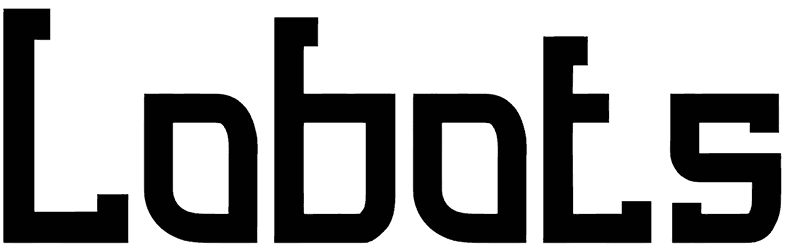
Lobots Font
While the audience is being bombarded with thousands of graphic content every day, grabbing their attention is really hard, but a magical geometric font such as Lobots would solve this problem and can be your game-changer in designing eye-catching artwork, including movie posters, video game banners, digital brochures, business cards, and logos.
If you want to share a sense of dynamic, modernity, futuristic, or drama, this robotic font would be really helpful.